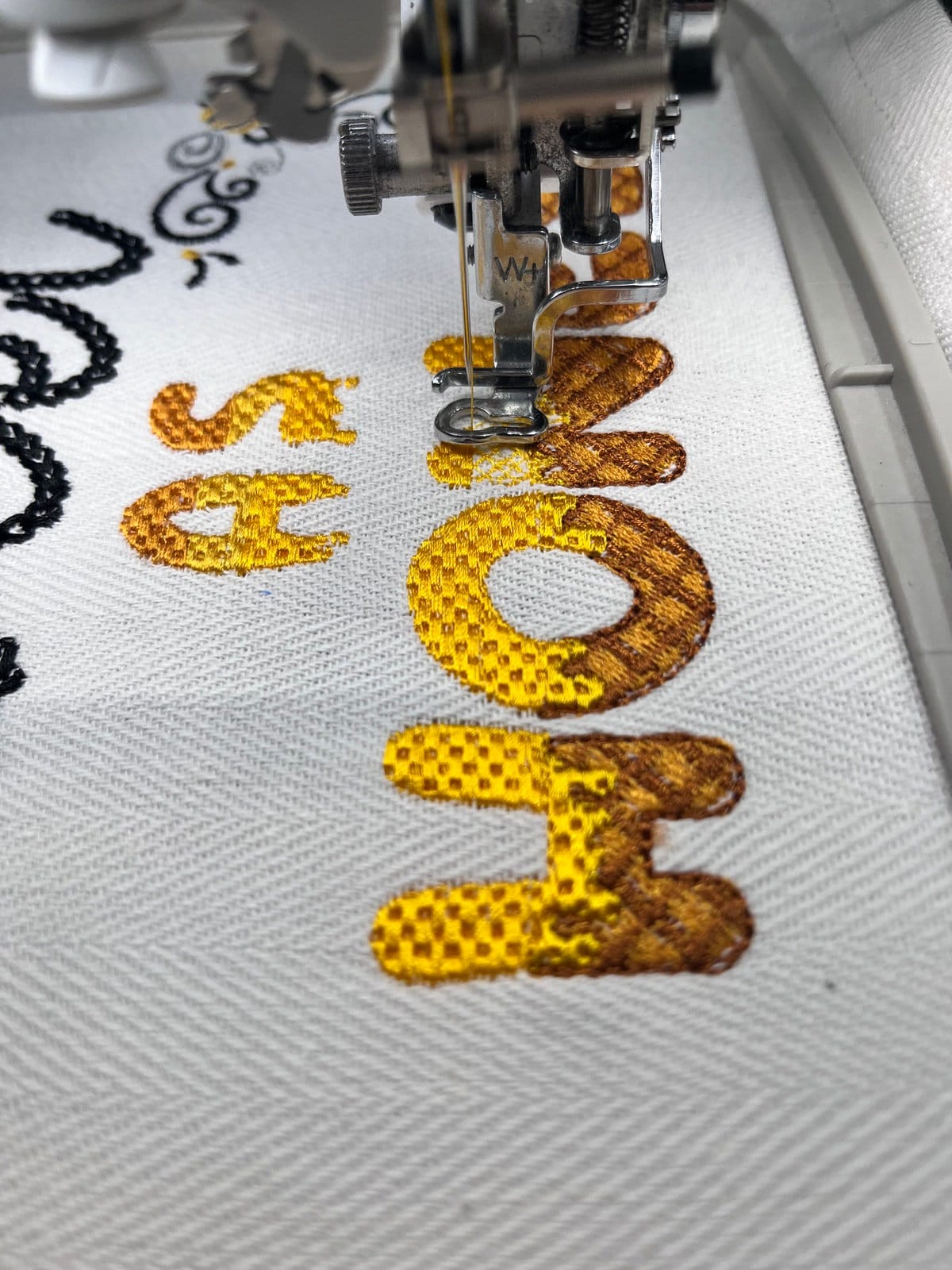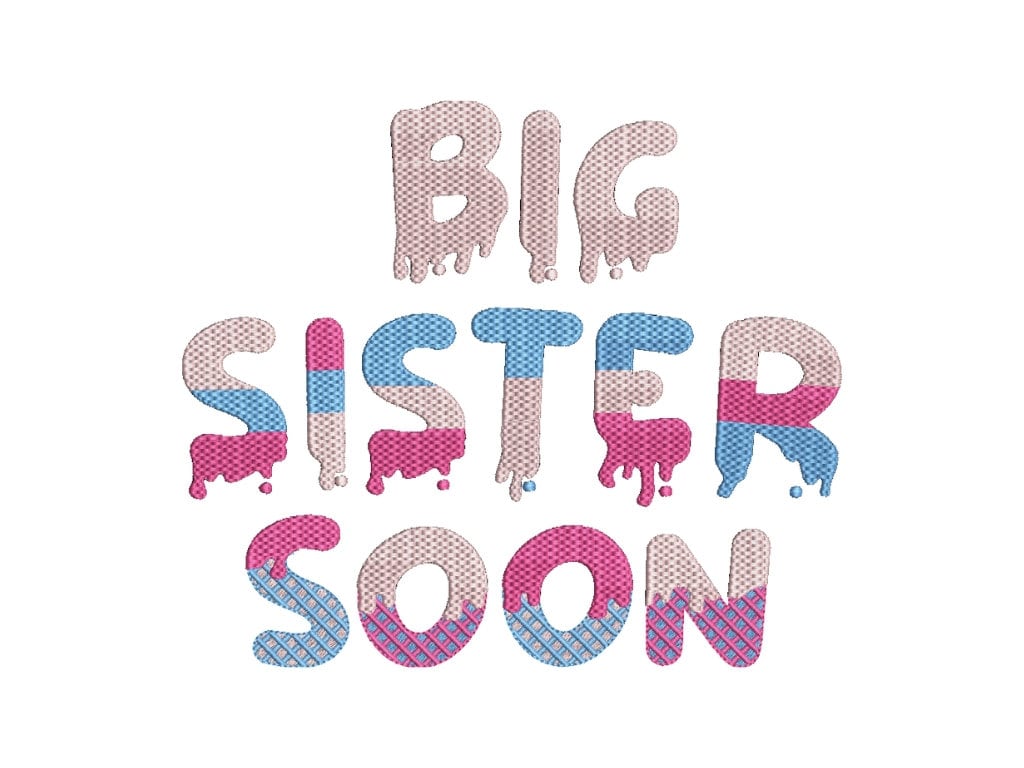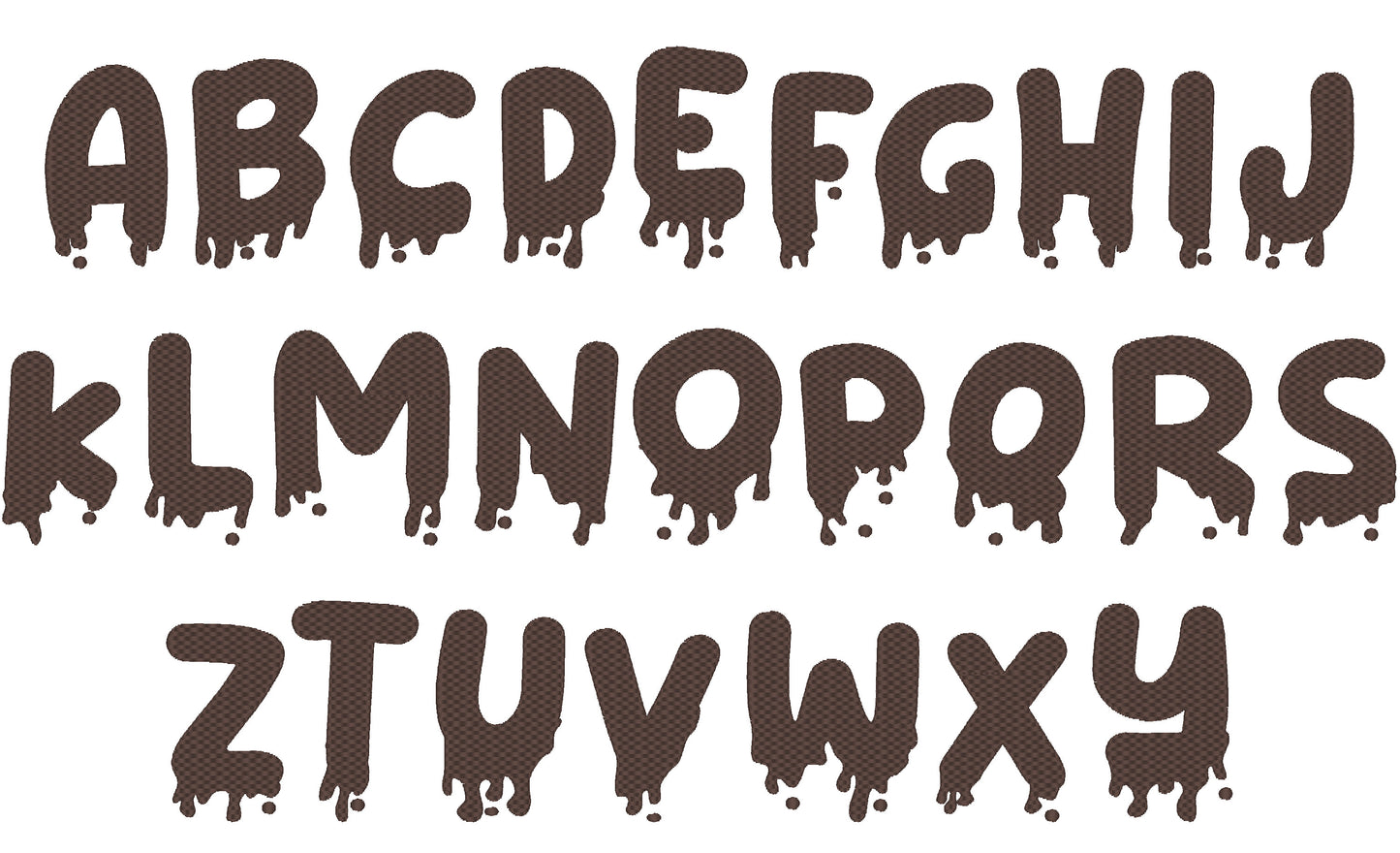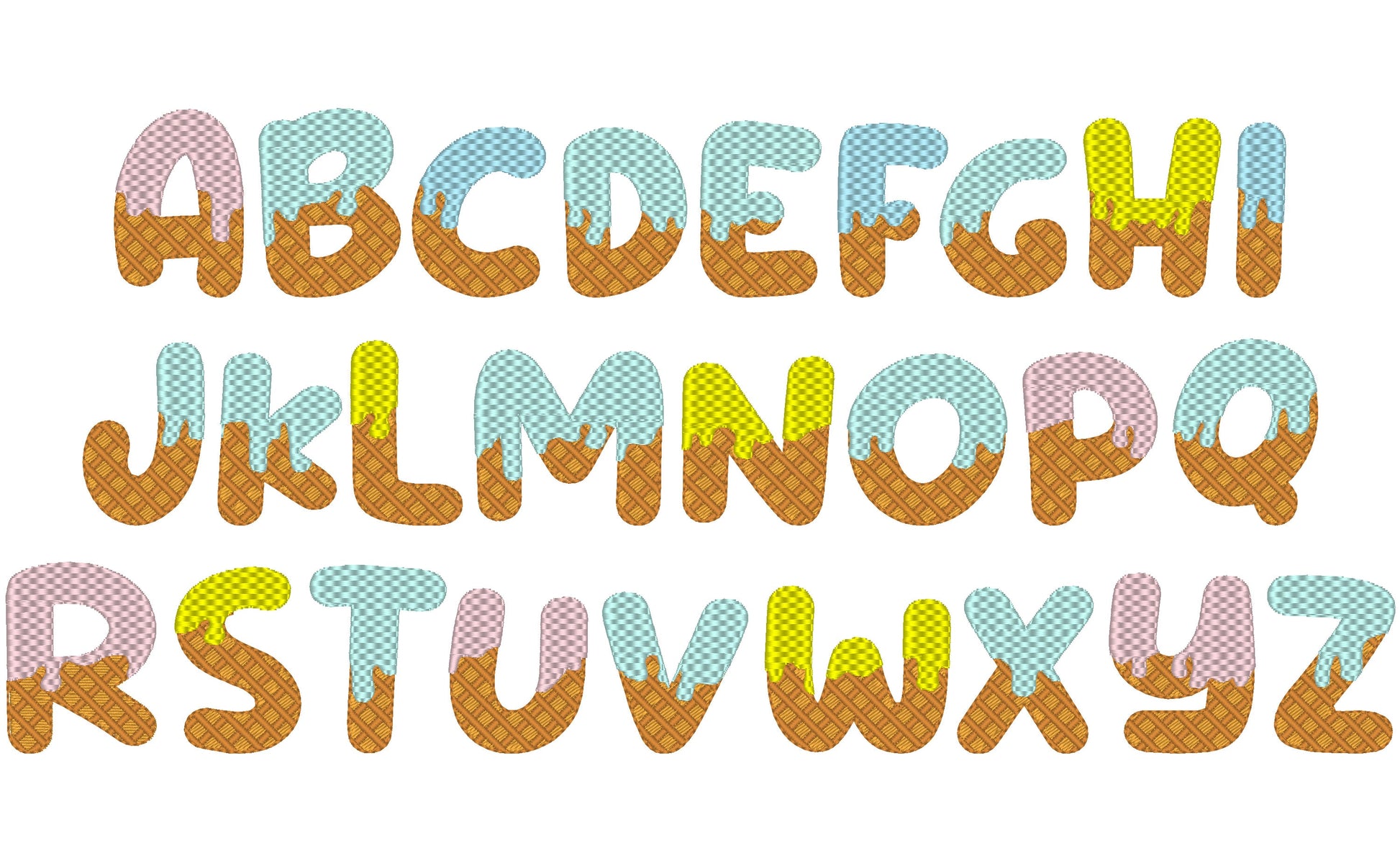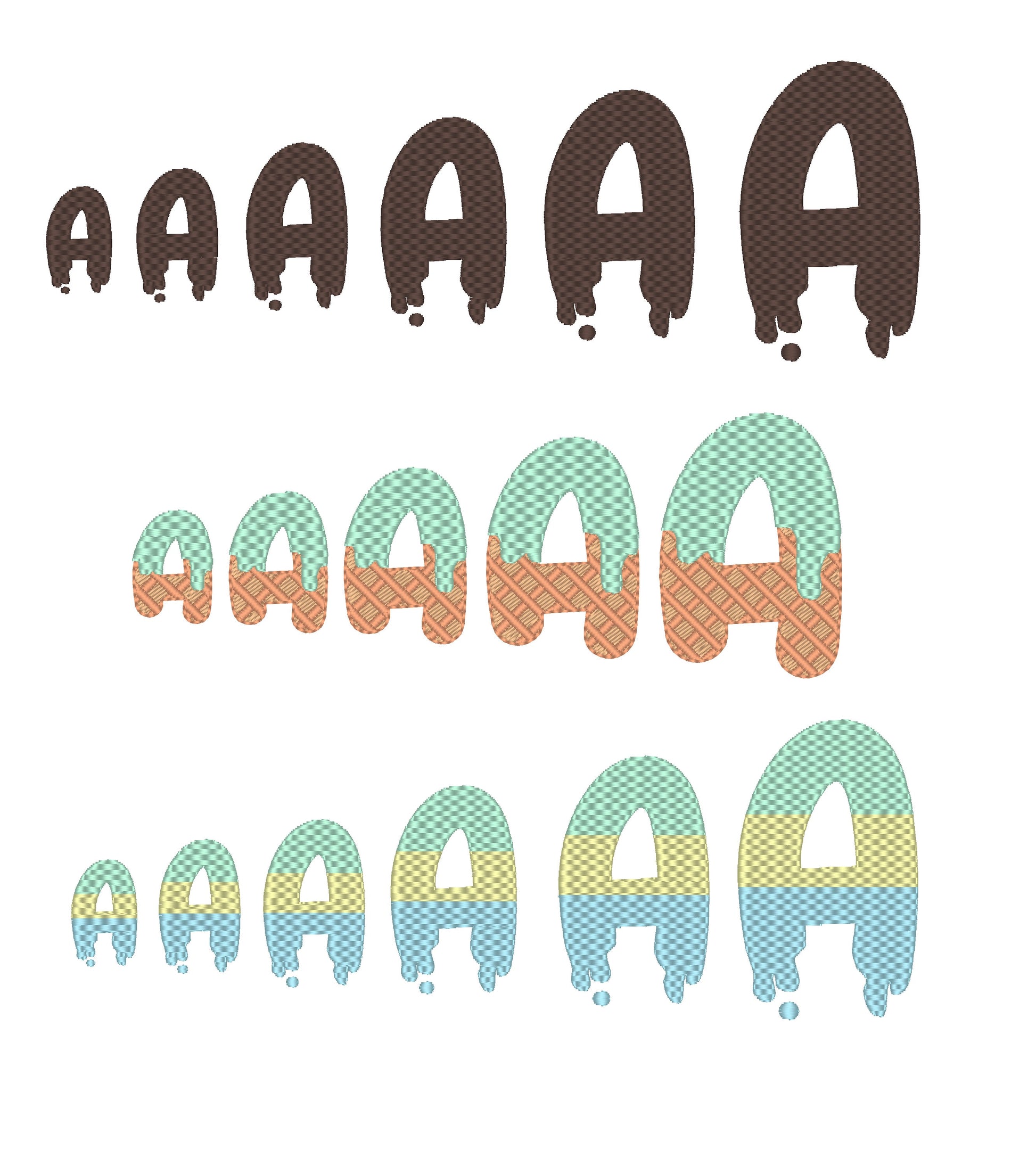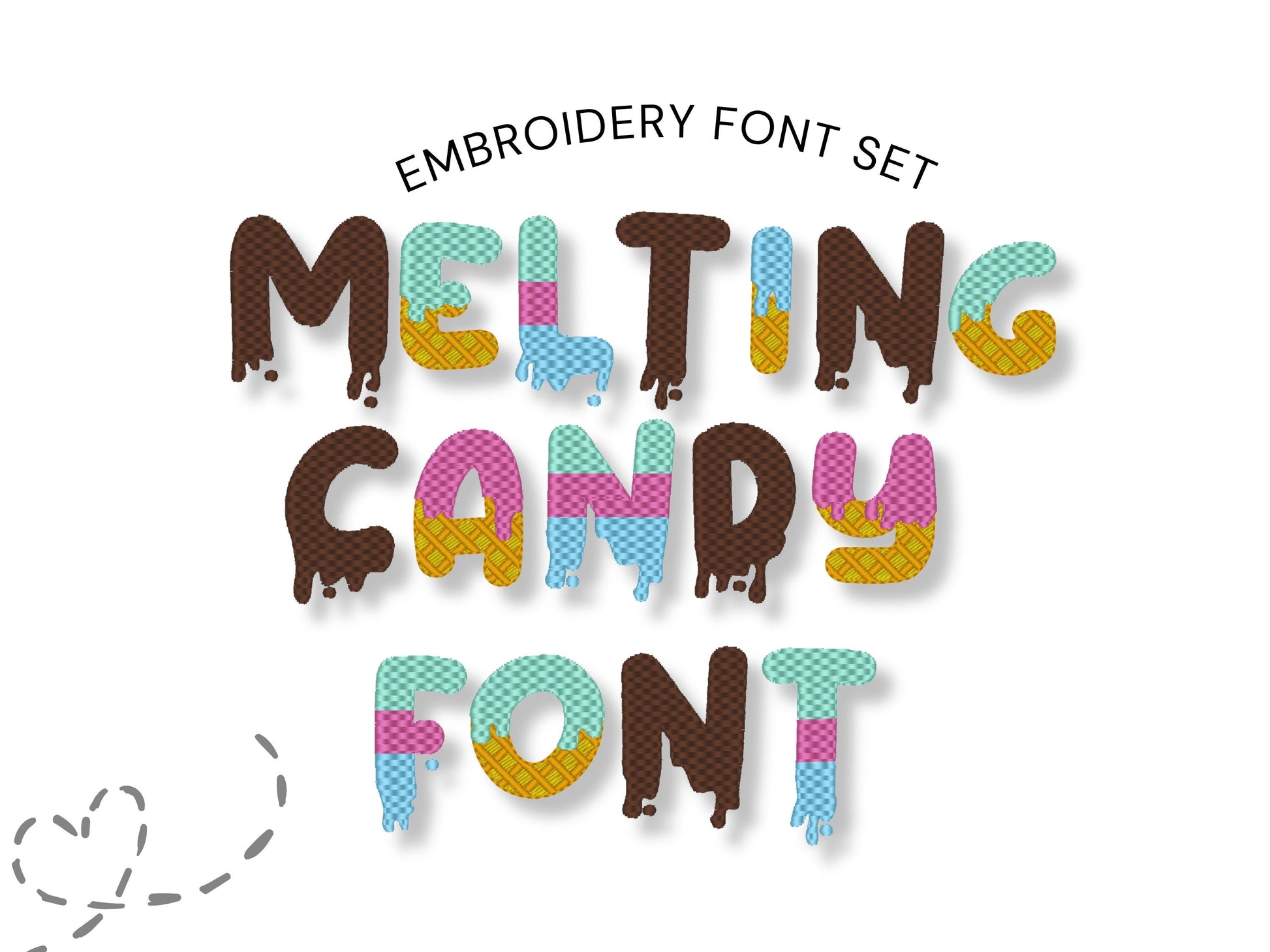
Decorative Melted Font Set of 3
Or click to open the linkA set of three melted, dripping fonts in waffle stitch, made to mix and match. Fun for kids' names, sweet-treat themes and playful monograms.
Three fonts, each with uppercase letters A to Z: Melting Chocolate Dream in 1, 1.3, 1.6, 2, 2.5 and 3 inches; Ice Cream Dream with a waffle cone and no drips in 0.9, 1.1, 1.4, 1.8 and 2.1 inches; and Multicolor Melting in 1, 1.3, 1.6, 2, 2.5 and 3 inches.
- 3 melted waffle stitch fonts: Chocolate Dream, Ice Cream Dream, Multicolor Melting
- Uppercase A to Z in each font
- Sizes from 0.9 to 3 in